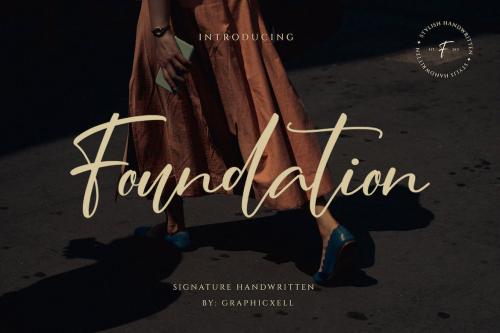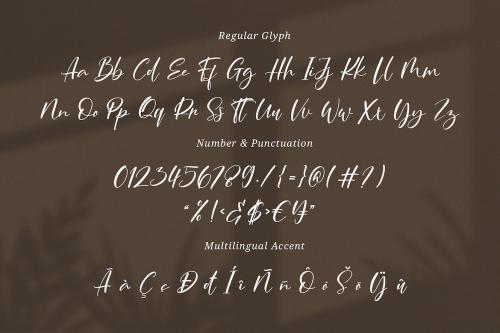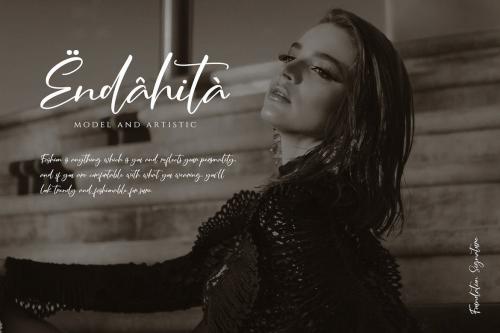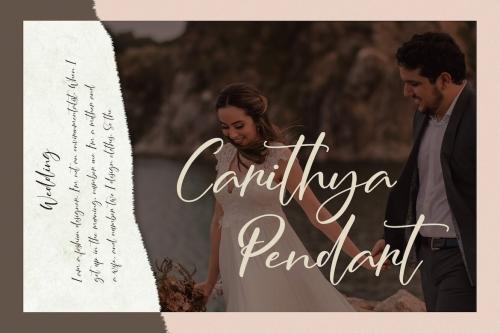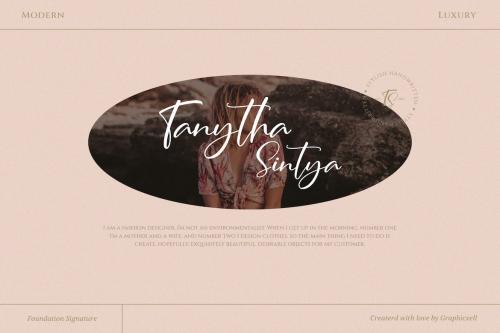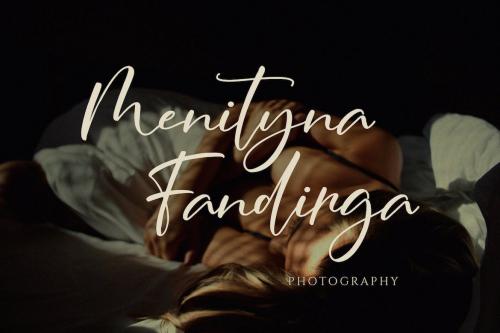
基础 - 独特签名字体
Foundation is a Casual, Modern, Stylish, Classy script font, And I hope you love every moment of using them!
Foundation was built with OpenType features and includes ligatures, numbers, punctuation, and it also multilingual support.
Foundation script fonts combined with Abstract Shapes the perfect quality and graphic of elements let you create wedding invitations, wedding stationery, DIY, wrappers, fashion textile patterns, textures, posters, wedding decorations, gifts, quotes, blogs, wallpapers, stickers, etc.
+ Standard glyphs
+ Ligatures
+ International Accent
Fonts include multilingual support